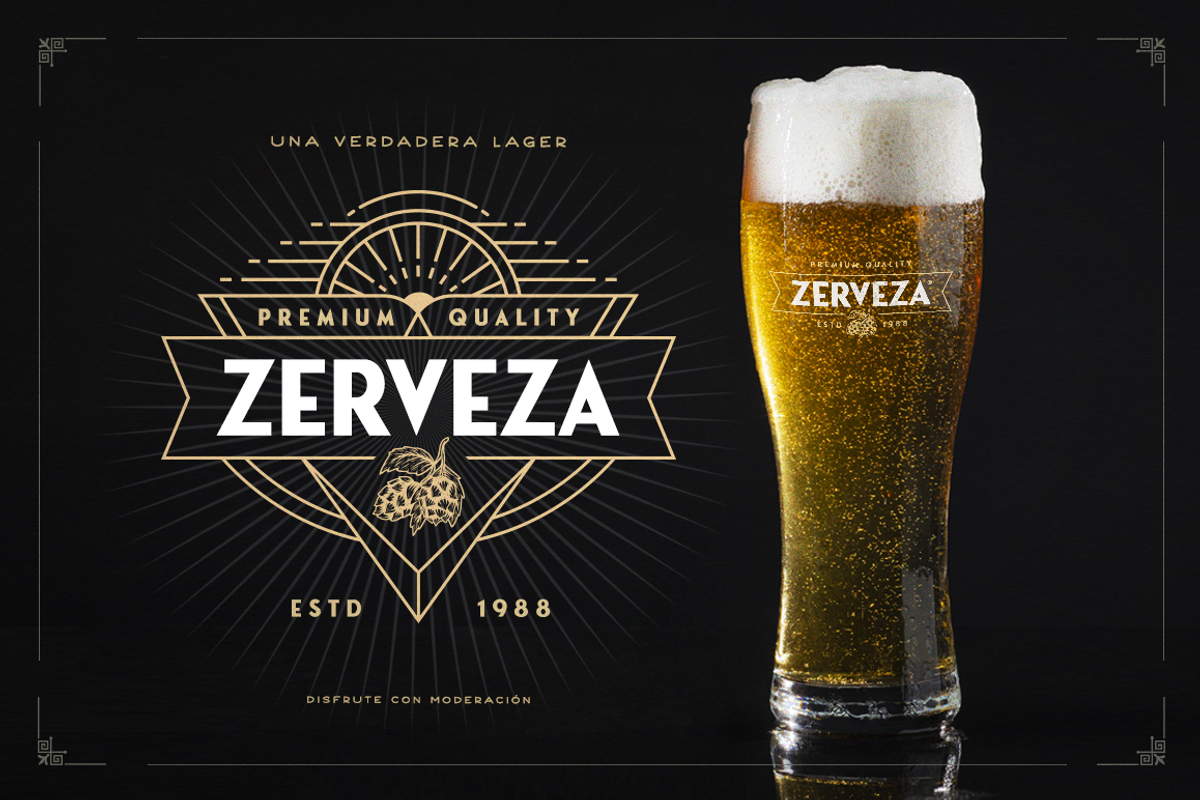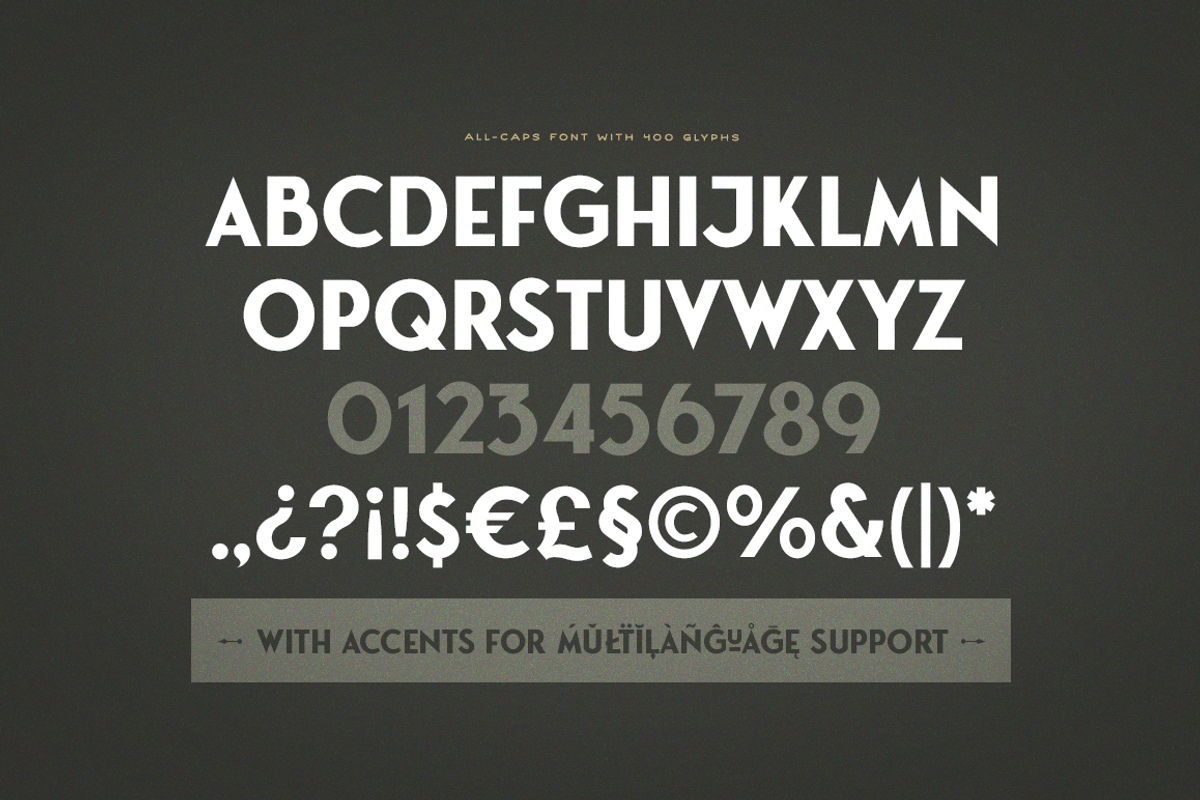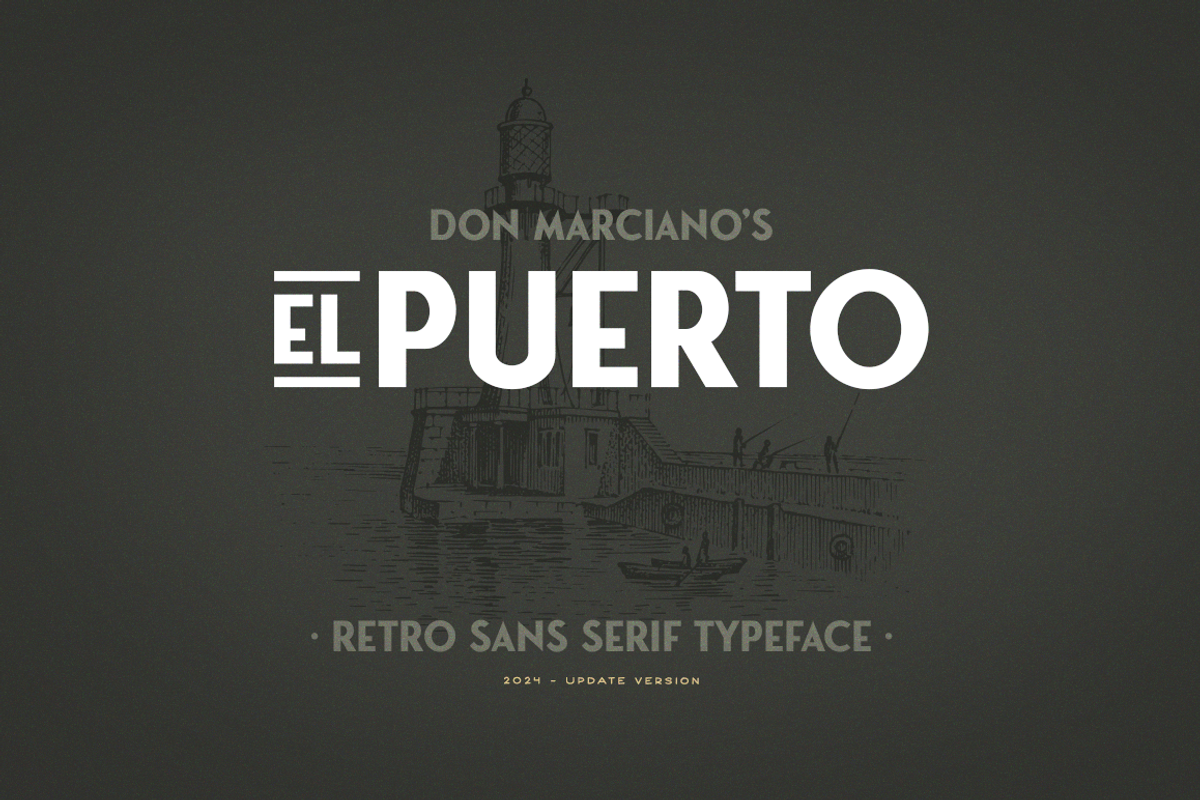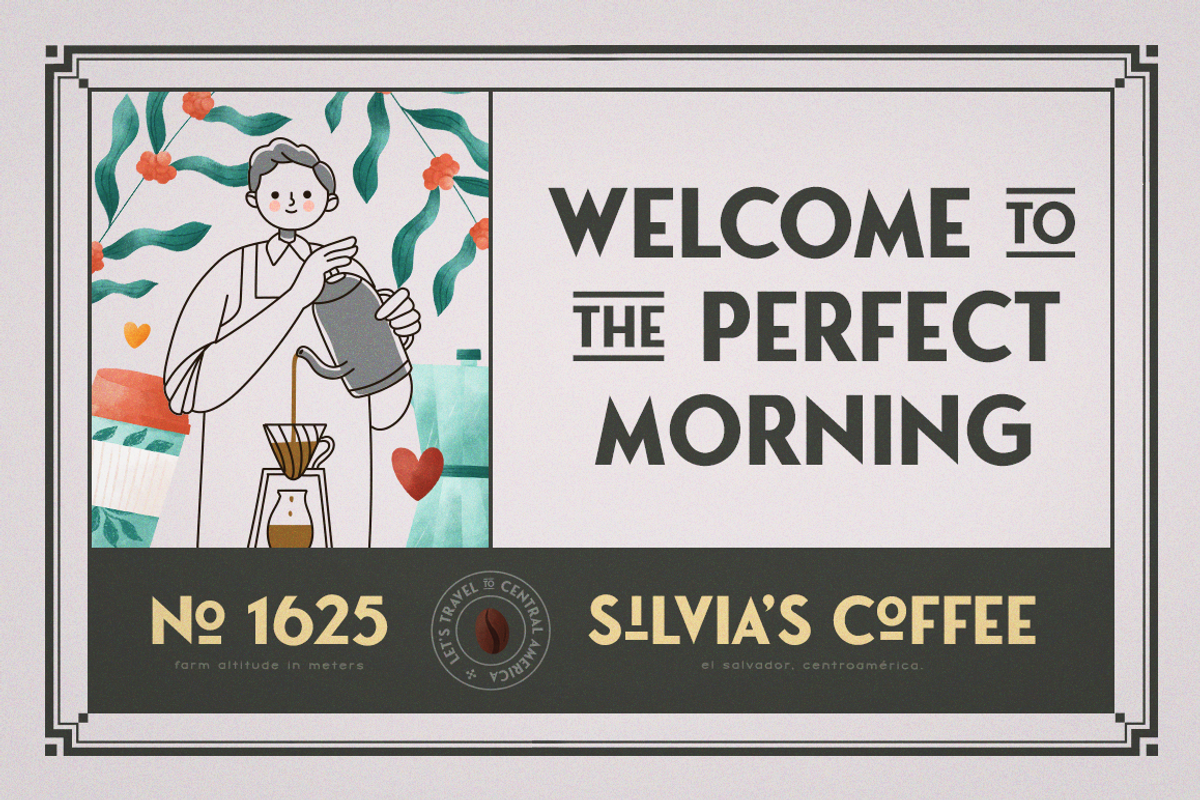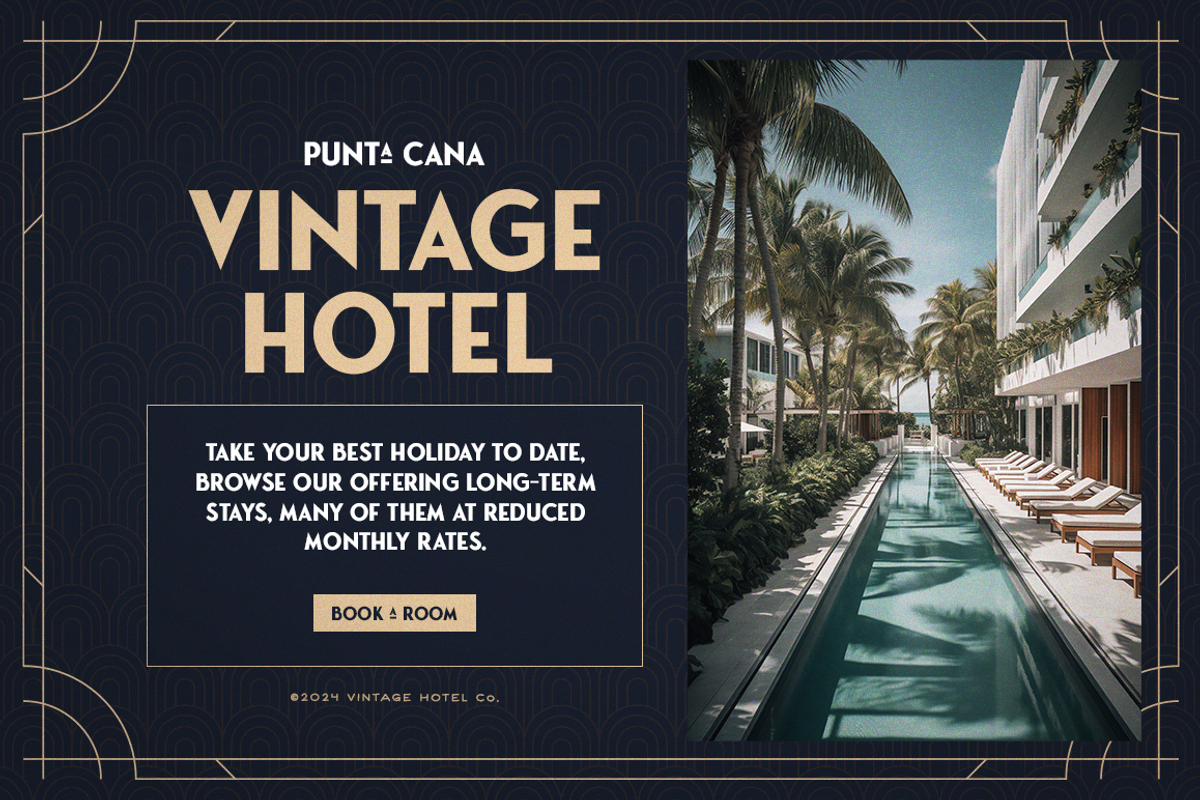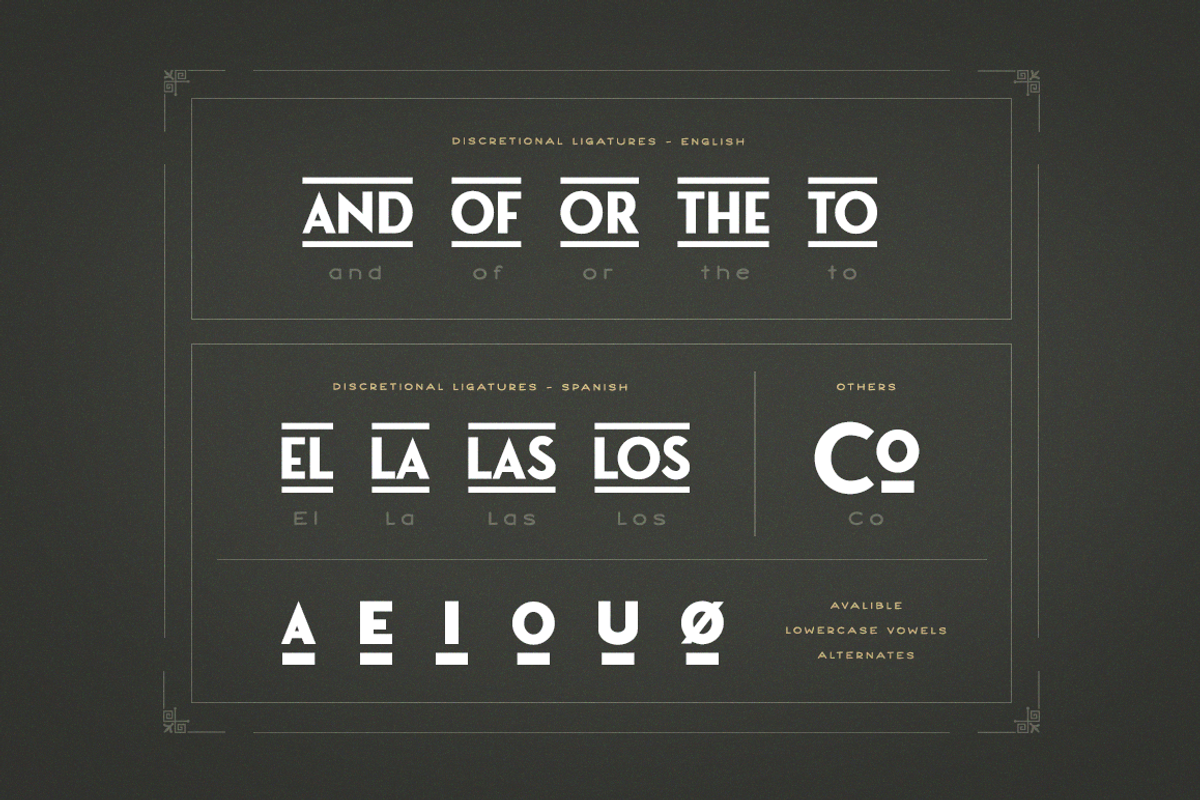
Puerto Retro Sans Serif
Puerto is a retro sans serif font, designed with clean lines and strong angles, the pointy corners translate to an Art Deco look and feel that helps create its old-style identity.